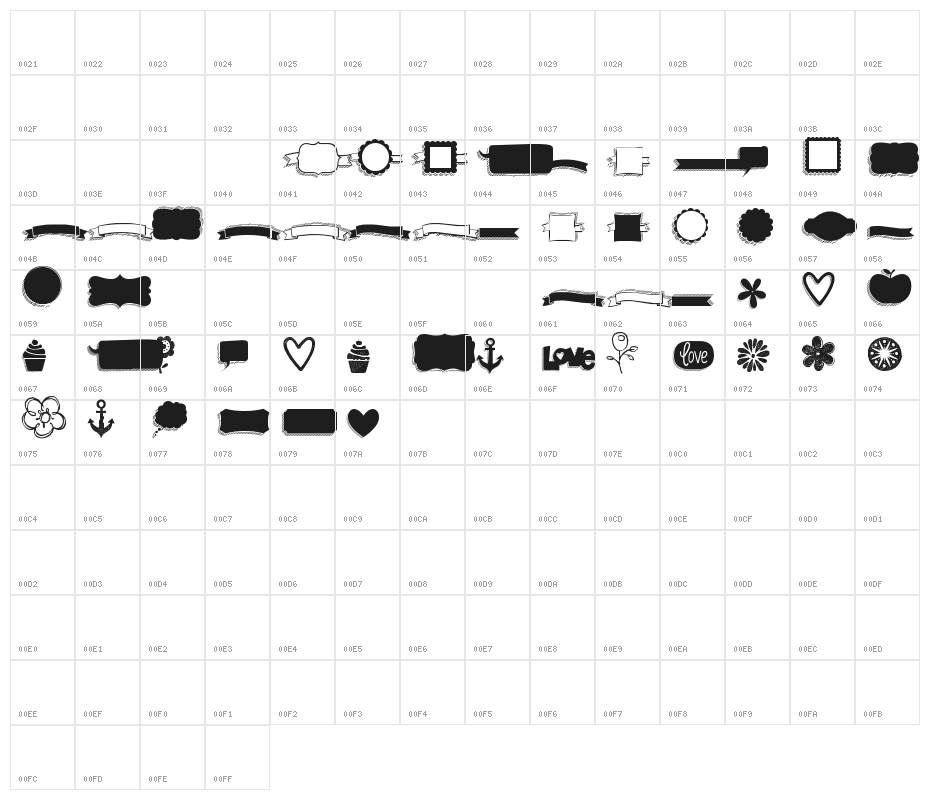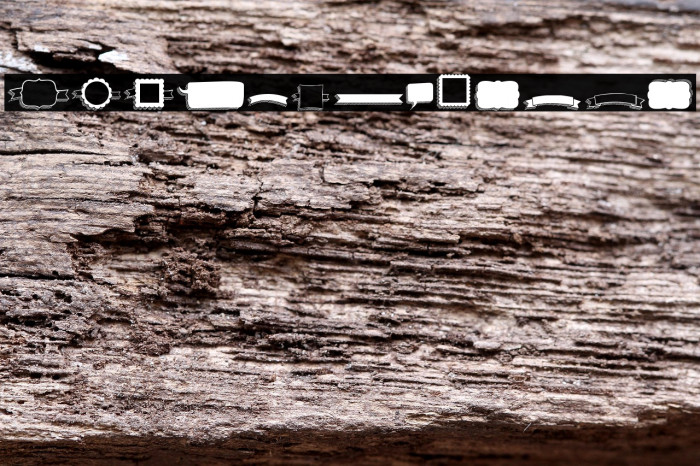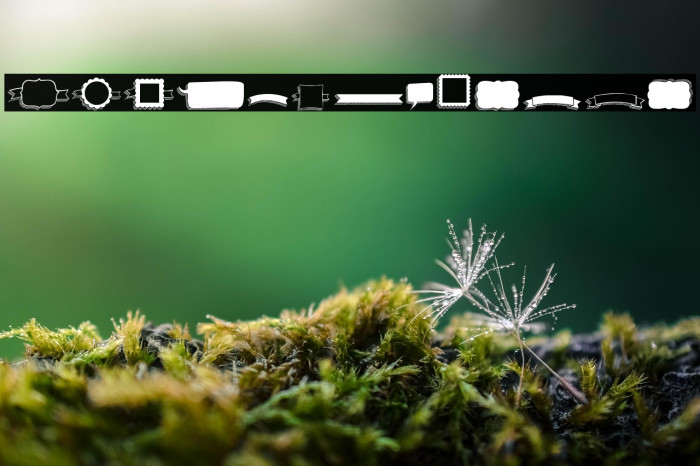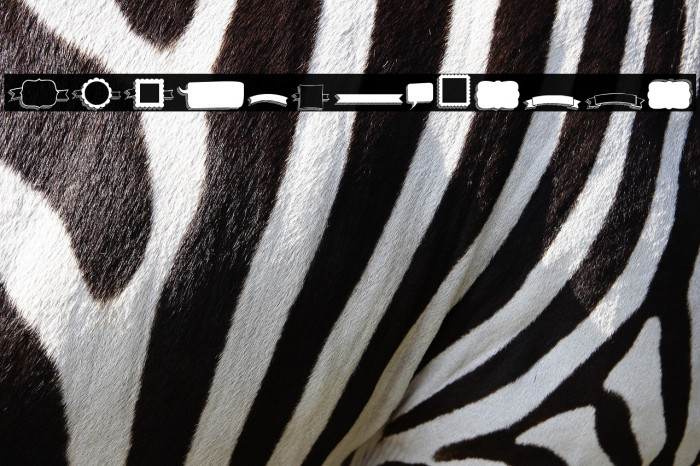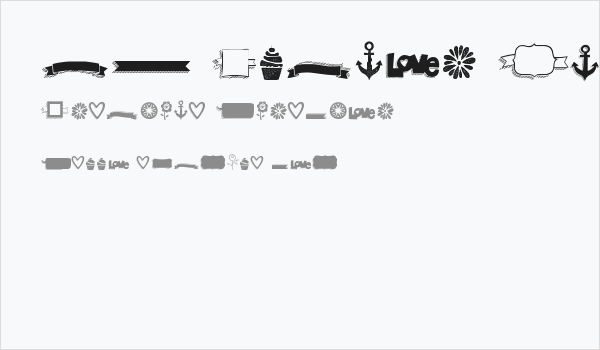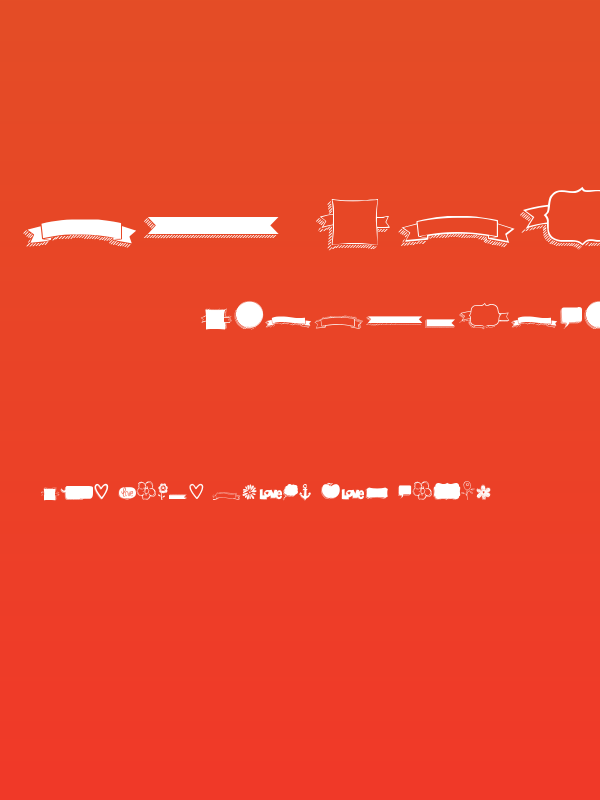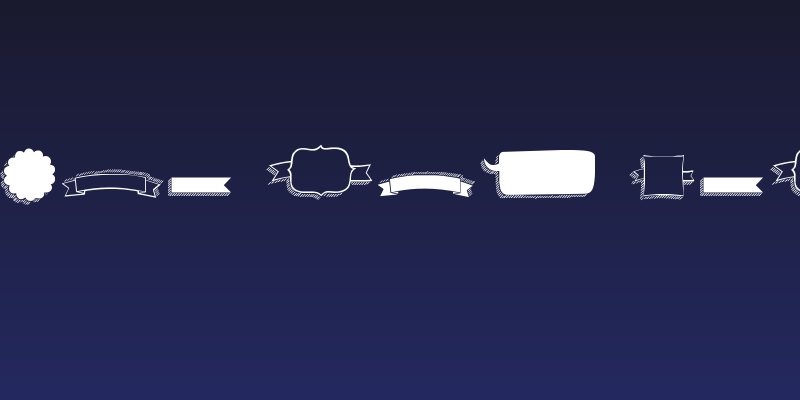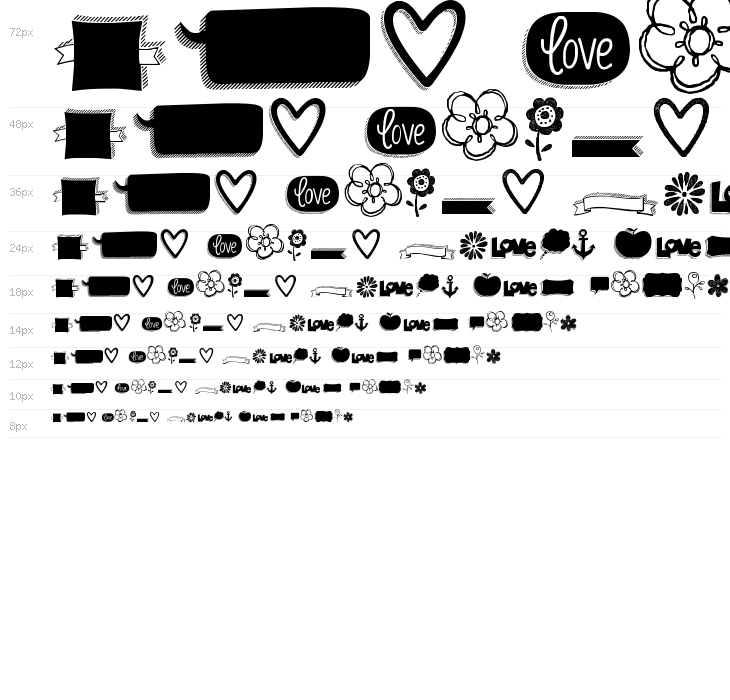
KG Flavor And Frames Six Font
KG Flavor And Frames Six Description
This collection features a variety of decorative frames and shapes, each with a playful and whimsical design. The elements include speech bubbles, banners, hearts, flowers, and other charming motifs, all rendered in a bold, black silhouette style. These graphics are perfect for adding a touch of creativity and fun to any project. The designs are versatile and can be used in a variety of contexts, from scrapbooking to digital design, offering a unique way to highlight text or images.
| Use Case | Logos, Decorative elements, Creative projects |
| Proposed Projects | Ideal for scrapbooking, digital design, greeting cards, and creative projects requiring decorative elements. |